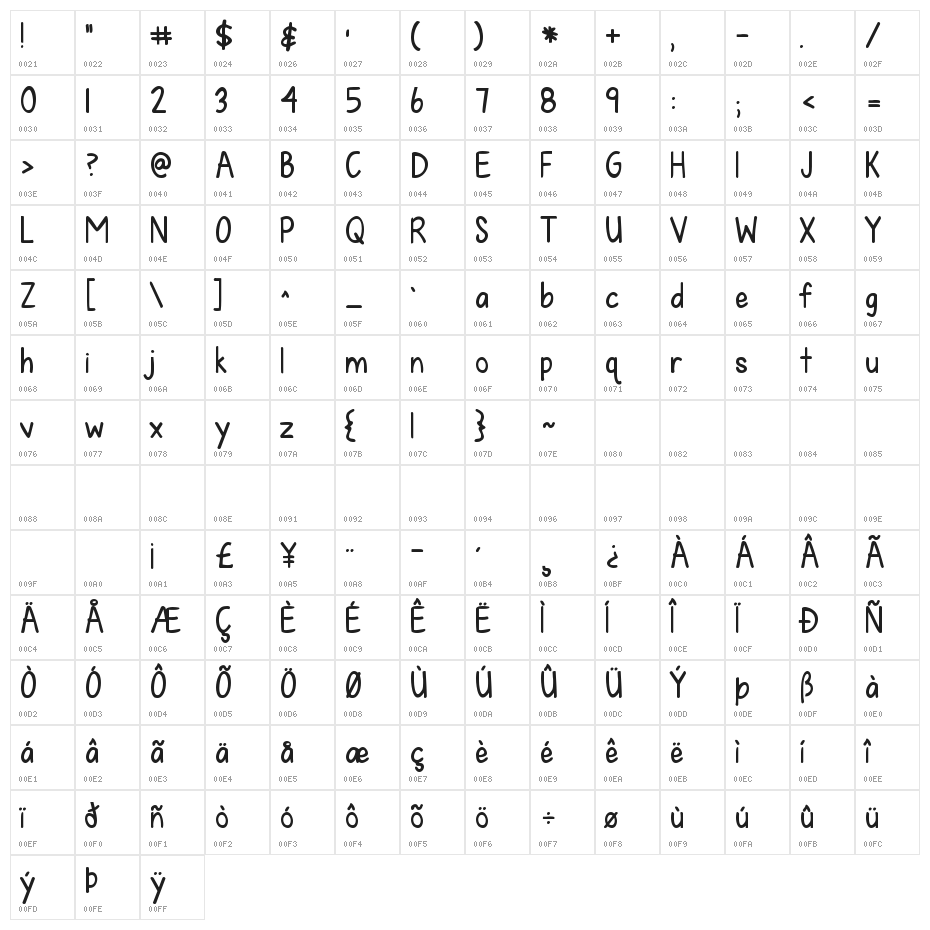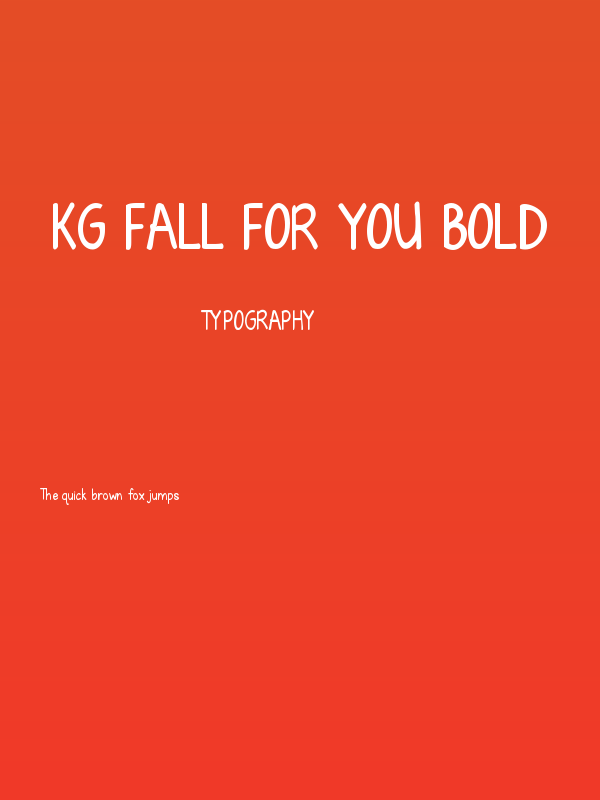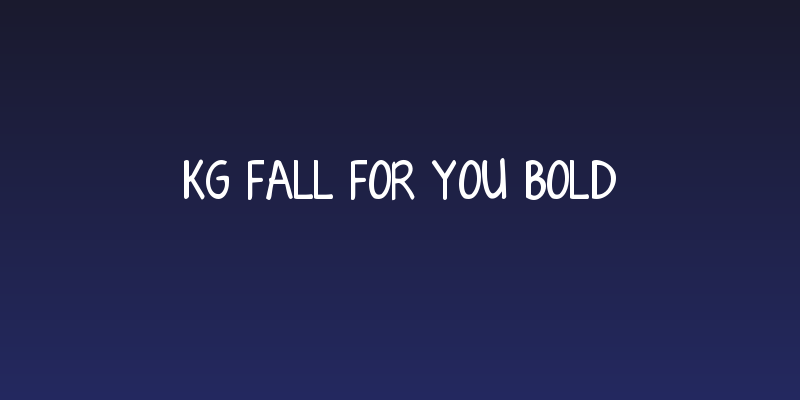
KG Fall For You Bold Font
KG Fall For You Bold Description
This playful and bold font features a handwritten style with smooth, rounded edges and a casual, friendly appearance. The letters are slightly irregular, adding a touch of whimsy and charm. The uppercase and lowercase letters maintain a consistent style, with a uniform stroke width that gives the font a cohesive look. The numbers and special characters are designed to match the overall aesthetic, making it versatile for various uses. The font's informal nature makes it ideal for projects that require a personal touch or a fun, approachable vibe.
| Proposed Projects | Ideal for children's books, greeting cards, playful branding, and social media graphics. |